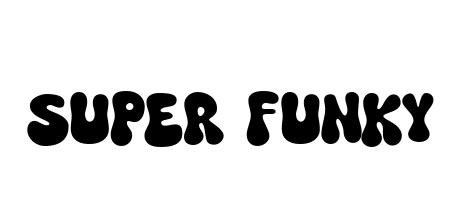
Super Funky
Super Funky is a bold, playful display font. Its rounded, bubbly letterforms evoke a retro 70s vibe, reminiscent of groovy psychedelic designs. The letters are chunky and interconnected, giving it a sense of fluidity and whimsical energy. Ideal for adding a fun, vintage touch to any project.